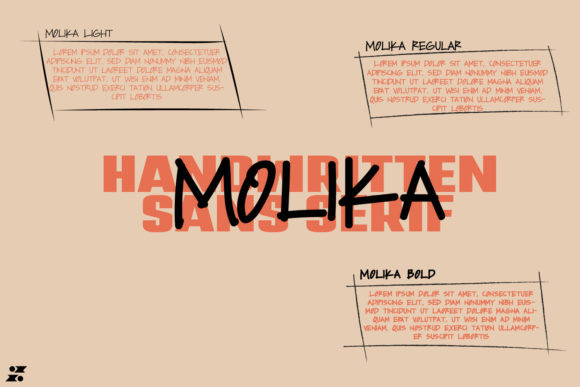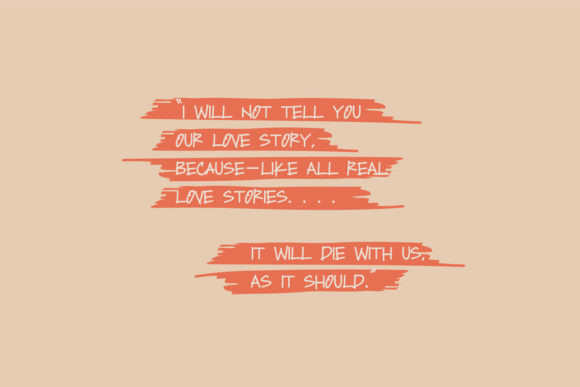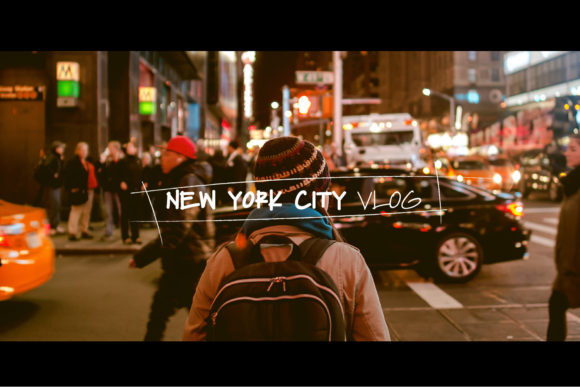
Molika Font
Molika is a cool and versatile handwritten font, that can be used for all chalkboard quotes or teaching material! Its authentic handwritten look and feel will add a personal and realistic feel to your designs.